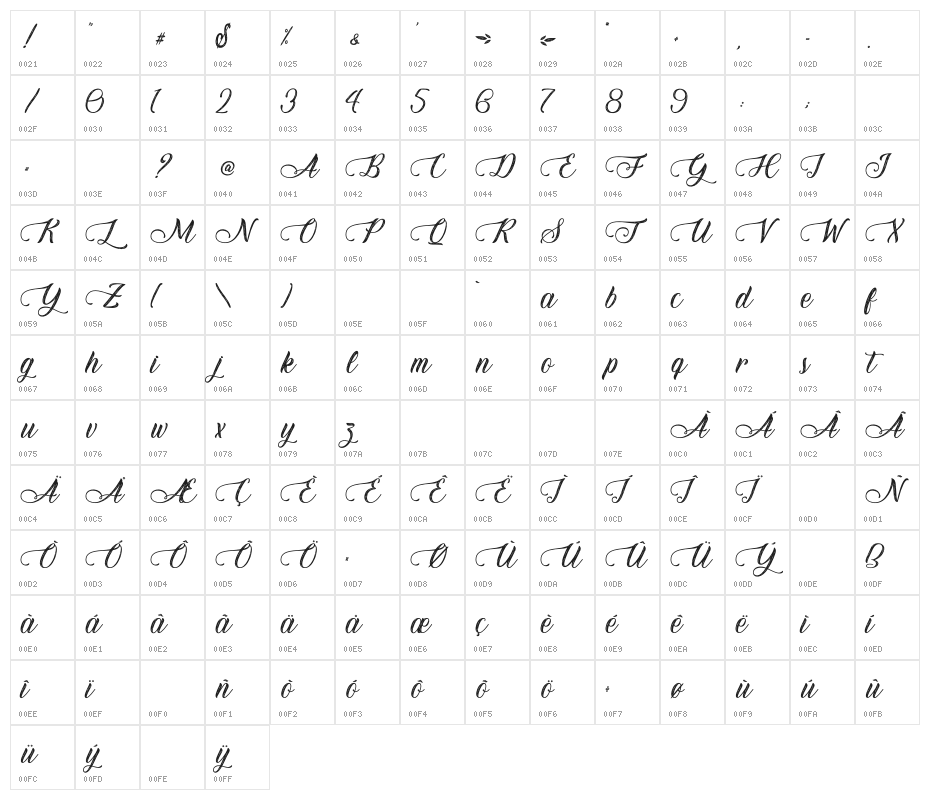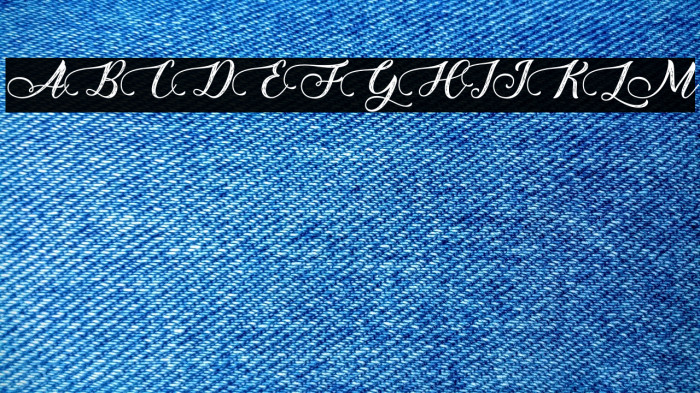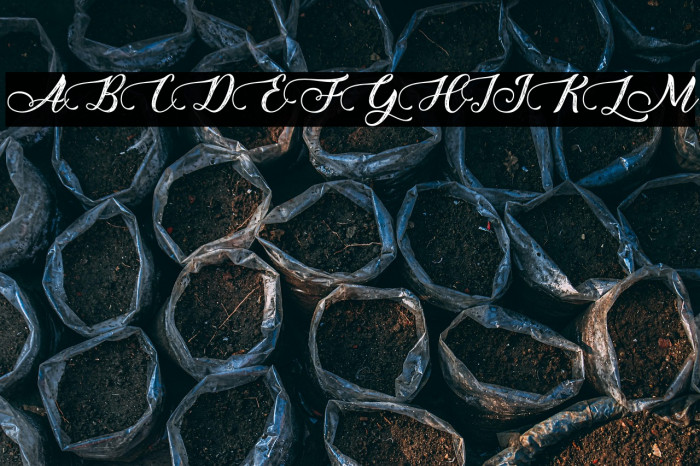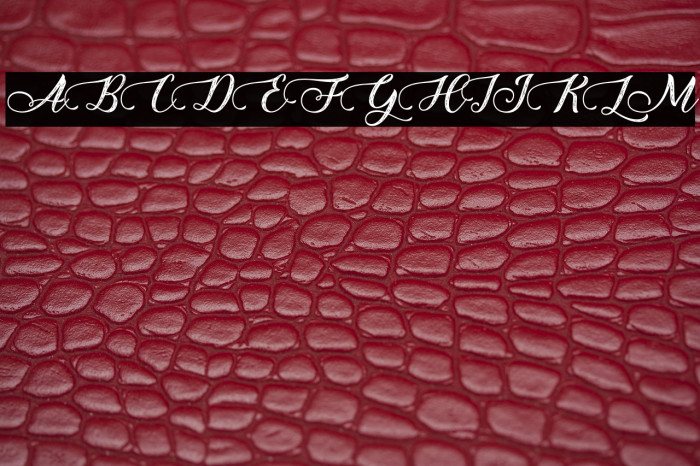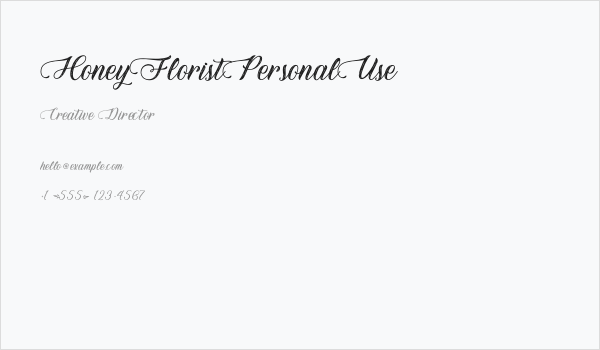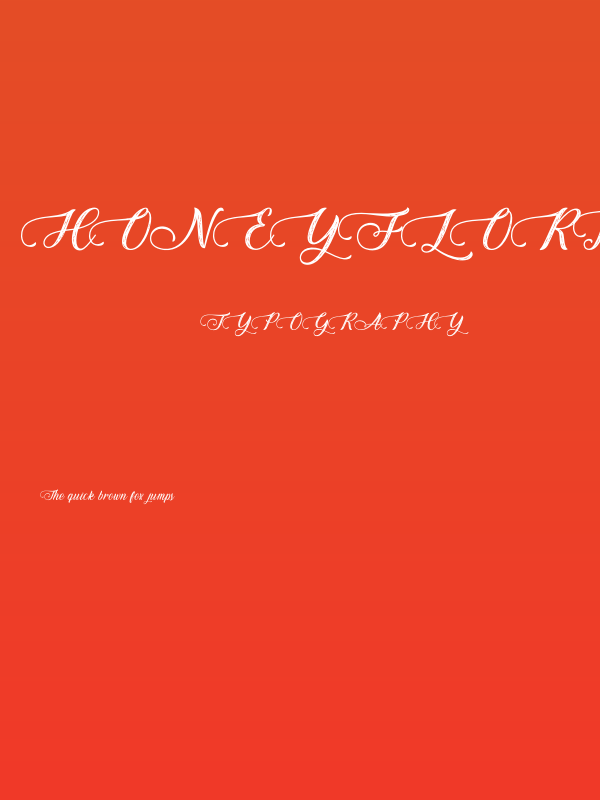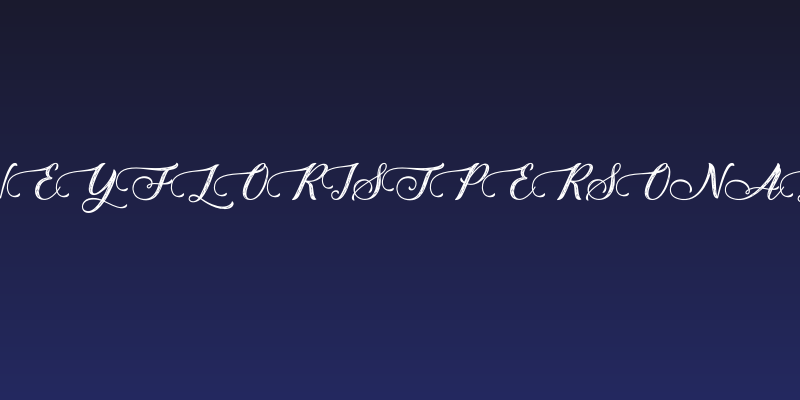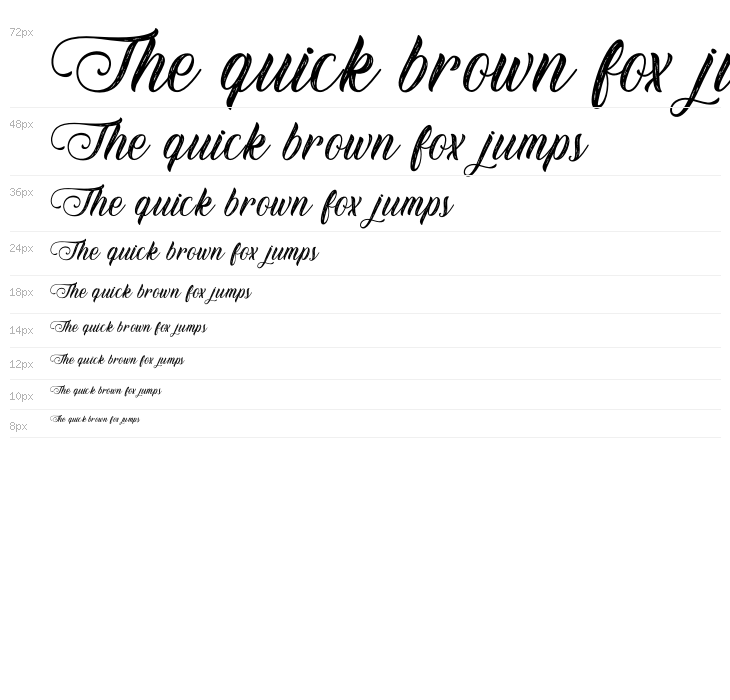
HoneyFloristPersonalUse Font
HoneyFloristPersonalUse Description
This elegant script font features a flowing, cursive style with intricate loops and flourishes, giving it a sophisticated and artistic appearance. The uppercase letters are adorned with decorative swashes, while the lowercase letters maintain a smooth, connected flow. The numerals and special characters complement the overall aesthetic with their graceful curves and stylish embellishments. The font exudes a sense of elegance and charm, making it ideal for projects that require a touch of refinement and creativity.
Overall StyleElegant, Artistic
Use CaseLogos, Invitations, Decorative text
Proposed ProjectsIdeal for wedding invitations, greeting cards, branding, and elegant packaging.